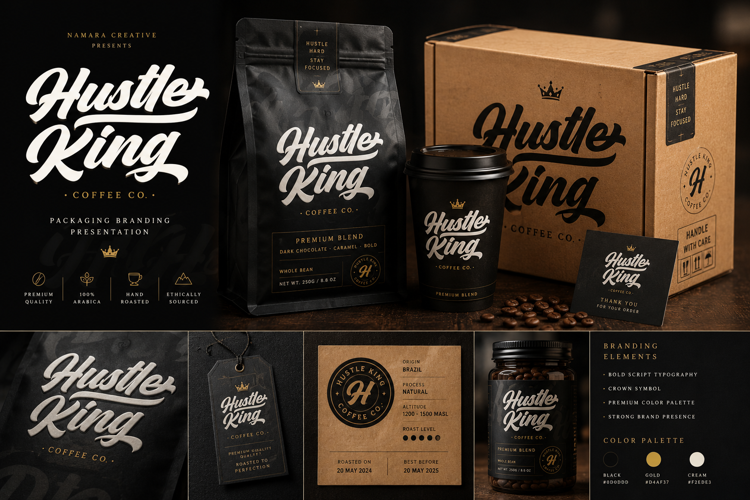
Hustle Kings Font
Bold modern script font designed to deliver strong visual impact with smooth, confident strokes.
Crafted for versatility, Hustle Kings works perfectly for logos, sports branding, streetwear, apparel, posters, packaging, advertising, social media graphics, and headline typography.